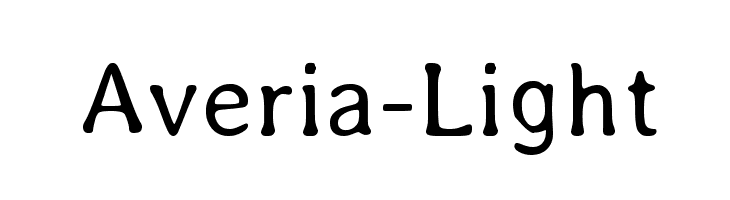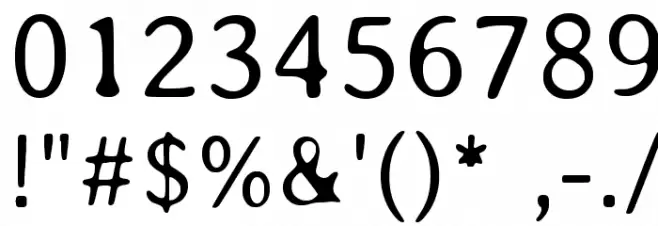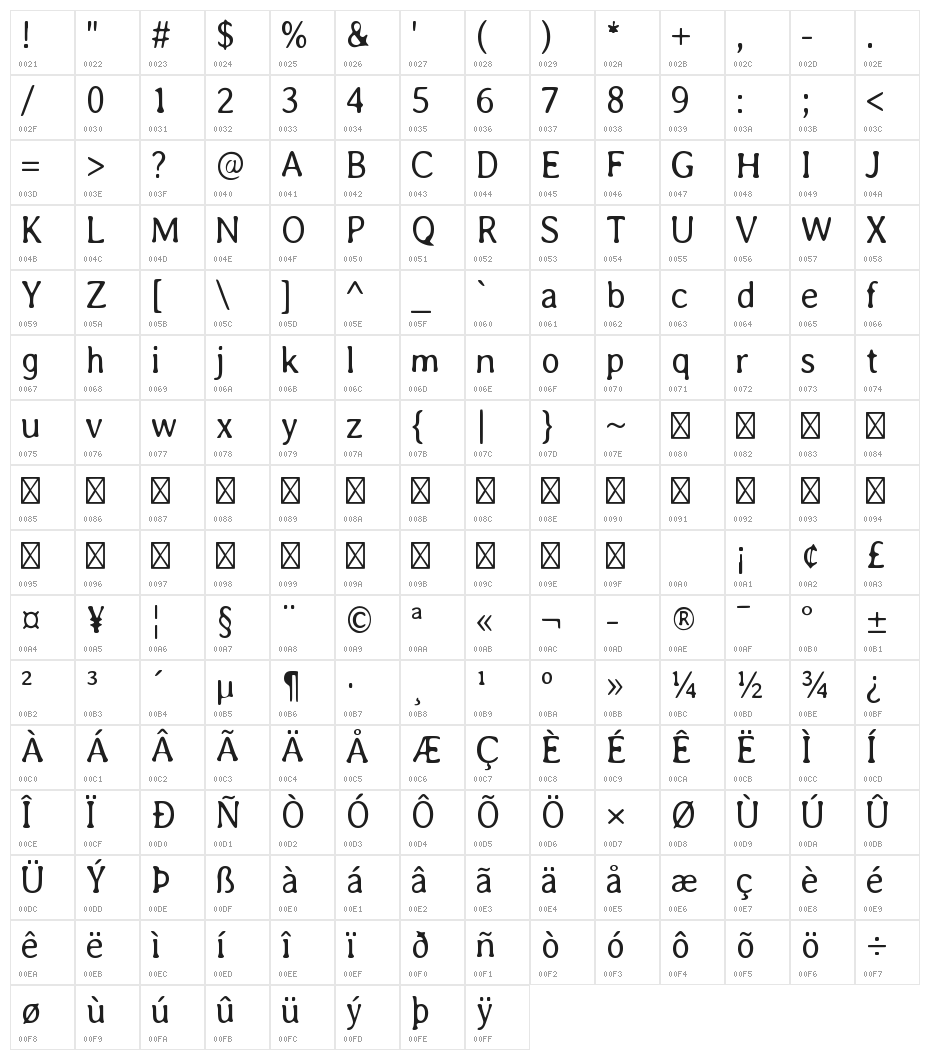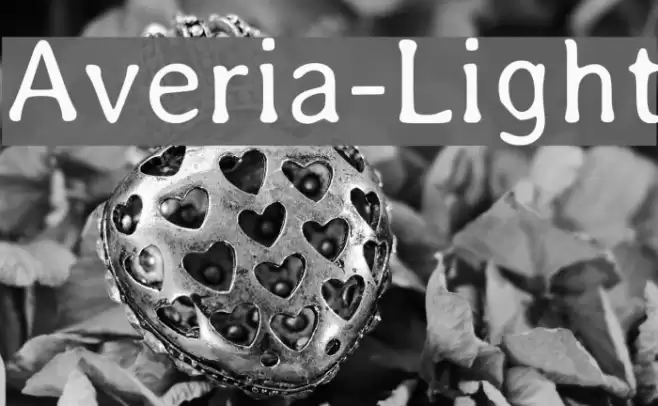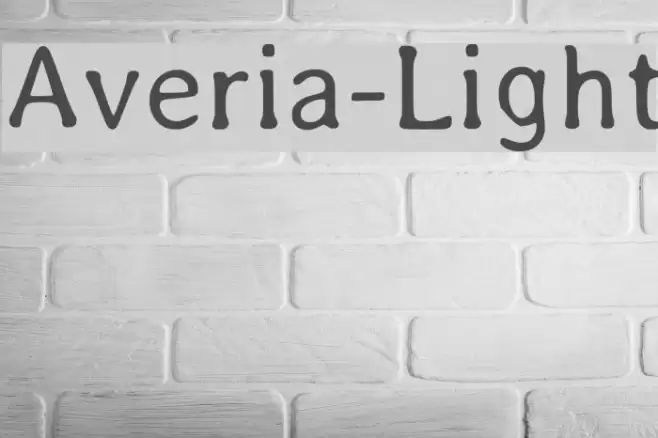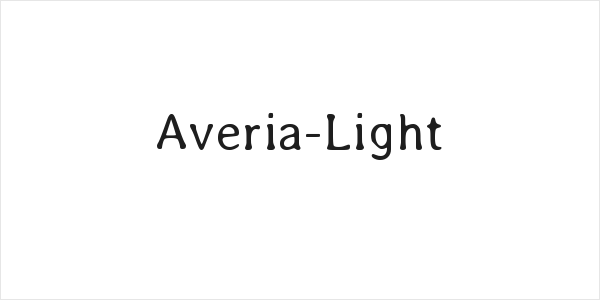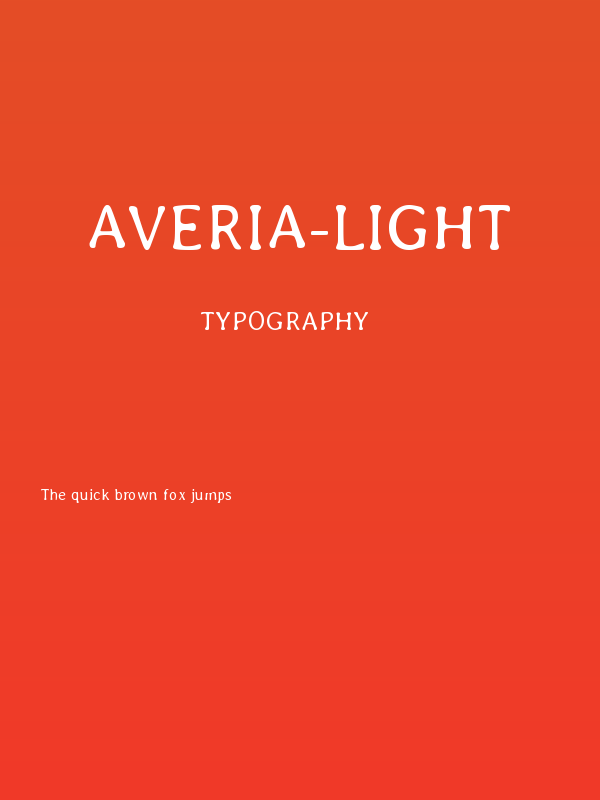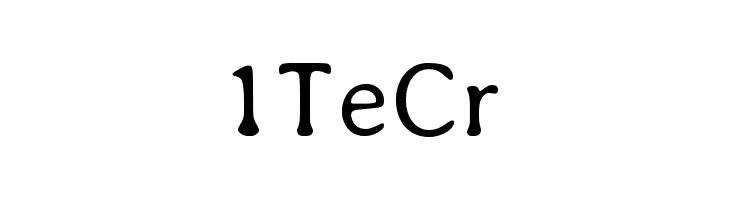
Averia-Light Font
Averia-Light Description
This font features a playful and slightly irregular design, giving it a hand-drawn appearance. The characters have a whimsical quality, with subtle variations in stroke width that add to its charm. The rounded edges and soft curves contribute to a friendly and approachable look. The uppercase letters maintain a consistent height, while the lowercase letters exhibit a gentle bounce, enhancing the font's casual style. Numerals are clear and easy to read, and the special characters blend seamlessly with the overall aesthetic. This font is versatile, suitable for projects that require a touch of personality and warmth.
| Proposed Projects | Ideal for children's books, greeting cards, casual branding, and creative projects. |